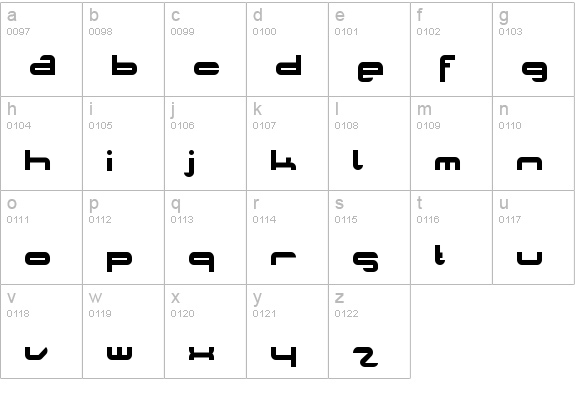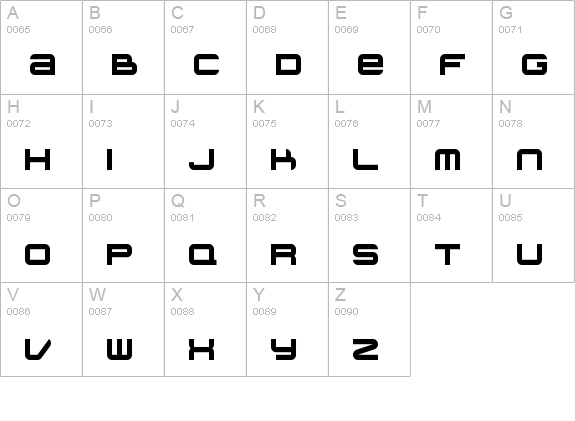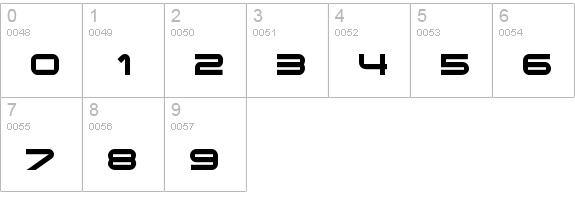
Planet Opti Font Details
Introducing Planet Opti, a captivating and versatile font that combines the perfect balance of elegance and modernity. With its sleek and stylish design, this font is sure to make a lasting impression on any project, from branding and advertising to web design and editorial work. Planet Opti offers a wide range of weights and styles, allowing for endless creative possibilities. Whether you're looking for a bold and attention-grabbing headline or a clean and refined body text, this font has got you covered. Its clean lines and geometric shapes create a sense of order and sophistication, while its subtle curves add a touch of warmth and personality. One of the standout features of Planet Opti is that it is not only visually stunning, but it is also freely available to download at FontsMarket.com. This means that you can access this exceptional font without any cost, making it an invaluable resource for designers, students, and anyone looking to enhance their creative projects without breaking the bank. The versatility of Planet Opti makes it suitable for a wide range of applications. Whether you're creating a logo for a high-end fashion brand, designing a magazine layout, or crafting an eye-catching social media post, this font will elevate your work to new heights. Its clean and legible letterforms ensure readability across different mediums, while its modern and elegant aesthetic adds a touch of sophistication and professionalism. With its seamless compatibility across various design software and platforms, using Planet Opti is a breeze. Whether you're working on Adobe Creative Suite, Microsoft Office, or any other design program, this font will seamlessly integrate into your workflow, saving you time and effort. In conclusion, Planet Opti is a remarkable font that combines elegance, versatility, and affordability. Its visually striking design and extensive range of weights and styles make it an essential addition to any designer's toolkit. And with the added benefit of being freely available to download at FontsMarket.com, there's no reason not to give this font a try and elevate your creative projects to new heights.